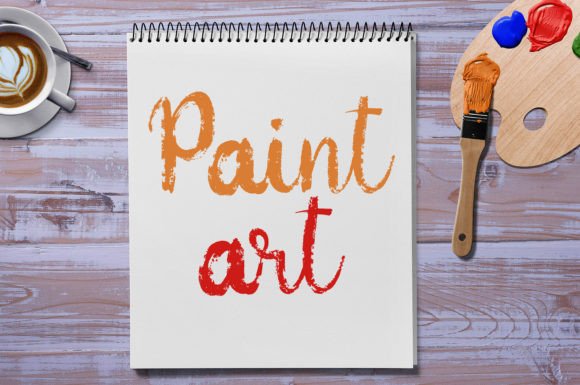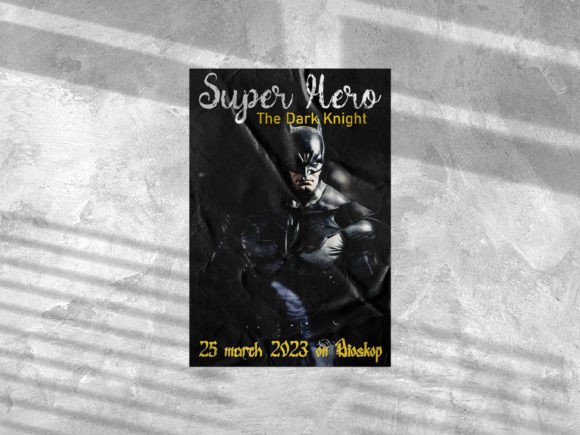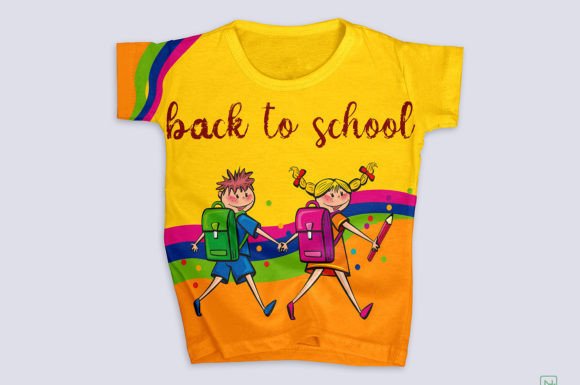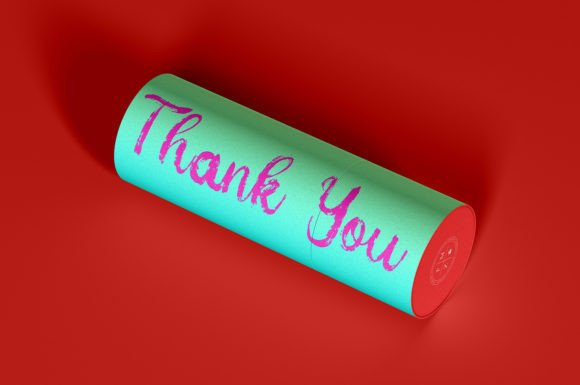
Introduction to Ink Script Font
Have you ever been working on a design project and found the perfect font, only to realize it’s not quite perfect for your creative vision? That’s exactly what happened to me when I stumbled upon the Ink Script Font. As I was designing a custom wedding invitation, I was searching for a font that would complement the elegant design, and that’s when I discovered this beautiful, high-quality script font.
What I love about the Ink Script Font is its ability to add a touch of sophistication and style to any design project. With its carefully crafted curves and precise spacing, it’s perfect for designers looking to create a professional and polished look. Whether you’re working on a branding project, a t-shirt design, or even a wedding invitation, this font is sure to be a valuable resource in your design arsenal.
Key Features of Ink Script Font
- High-quality, elegant script font suitable for creative projects, including wedding invitations, menus, and branding materials.
- Transparent background, allowing for easy layering and compositing in design software.
- Unique characteristics: flowing connections, subtle flourishes, and a touch of sophistication, making it perfect for adding a personal touch to creative projects.
- Perfect for designers, artists, and writers seeking a high-quality, elegant script font for their design projects.
Honest Review: Ink Script Font
As a designer, I’m always on the lookout for high-quality fonts that can elevate my creative projects. Recently, I had the chance to work with the Ink Script Font, and I’m excited to share my honest review.
- ✨ Elegant and sophisticated design: The Ink Script Font has a beautiful, elegant feel that’s perfect for projects that require a touch of sophistication.
- ✨ Great for titles and headings: The font is highly legible and looks great in larger sizes, making it perfect for titles and headings.
- ⚠️ Limited language support: The Ink Script Font only supports a limited range of languages, which may be a concern for designers working on projects that require multilingual support.
- ⚠️ May not work well on transparent backgrounds: The font can be difficult to read on transparent backgrounds, which may require some adjustments to the design.
Overall, I’m impressed with the Ink Script Font’s high-quality design and versatility. While it may have some limitations, it’s a great resource for designers looking for a elegant and sophisticated font for their creative projects.
Ink Script Font: A High-Quality Design Resource
Tips for Getting the Most Out of Ink Script Font
Use a transparent background to make your text stand out. Experiment with different font sizes and colors to create a unique look. Combine Ink Script Font with other design elements to create a visually appealing design.
Ink Script Font is perfect for creative projects such as wedding invitations, birthday cards, and social media graphics. It’s also great for designing logos, business cards, and other marketing materials.